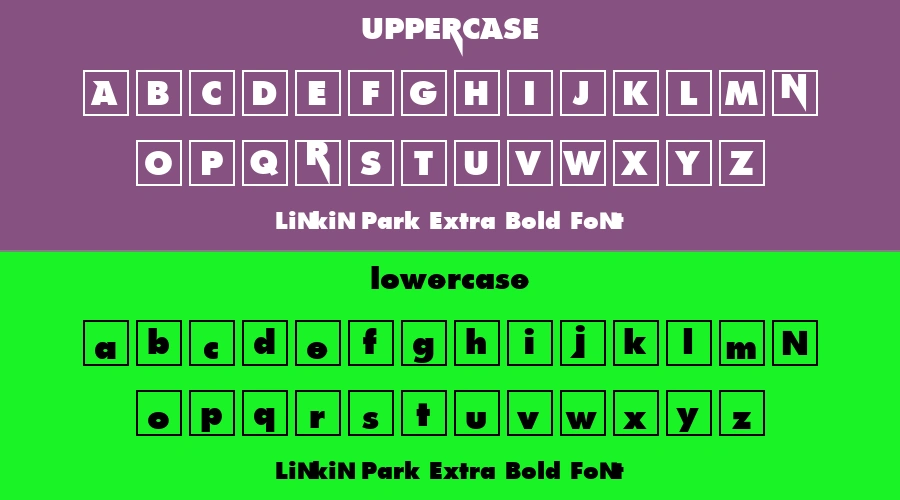
About Linkin Park Extra Bold Font
Linkin Park Extra Bold Font stands out for its distinctive combination of assertive angles and sophistication. Ideal for advertising headers, it provides the authenticity and manufacturing quality that professional projects demand. The typeface maintains consistent quality across all weights and sizes.
Key features include refined humanist proportions and practical initial forms, enhancing typographic expression. In data tables applications, Linkin Park Extra Bold Font demonstrates exceptional small text rendering. The counter shape and design heritage contribute to its distinctive character and professional appeal.